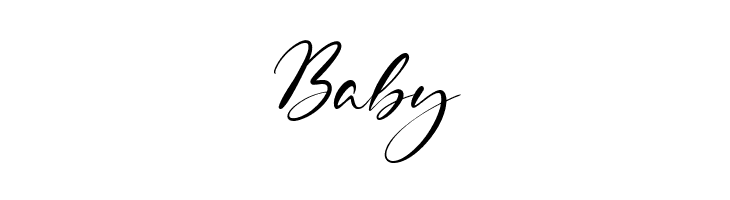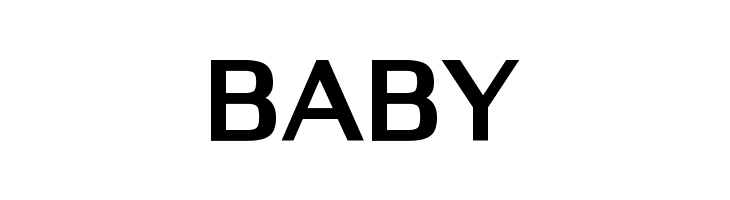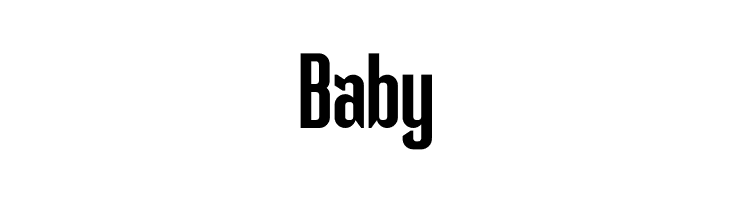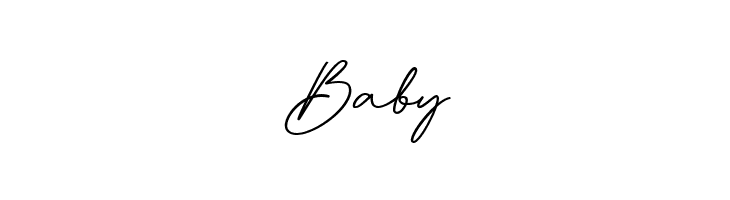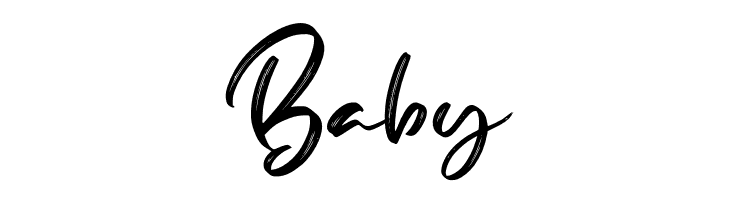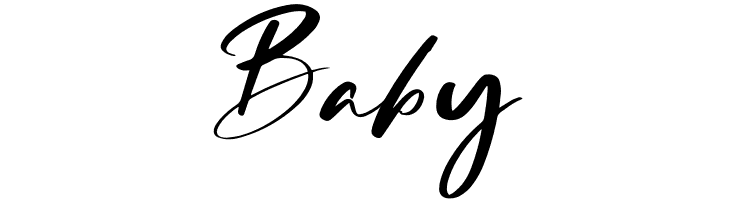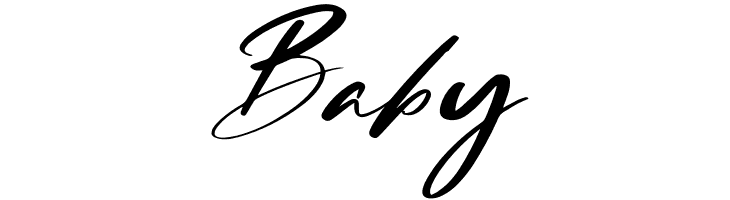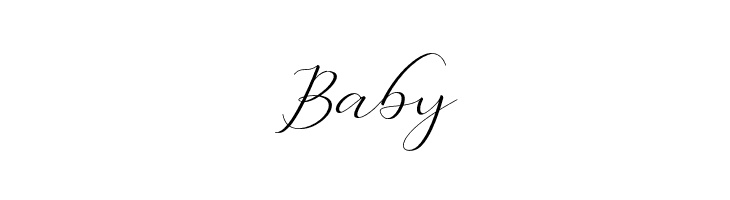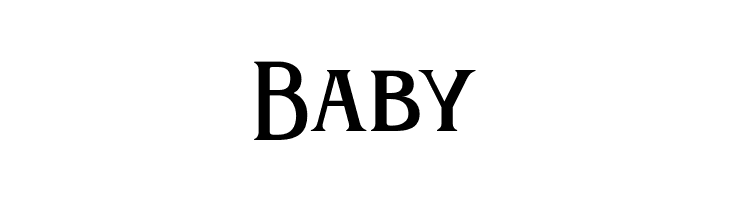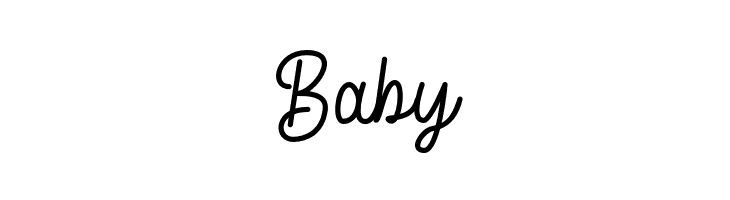
( Fonts by Suby Studio - Teguh Subiyantoro - Personal-use only. For commercial use please contact owner. ) An elegant script font with flowing, cursive strokes and sophisticated flourishes. Download 64 Downloads@WebFont
( Fonts by Letterena Studios - letterena.com - Personal-use only. For commercial use please contact owner. ) A dynamic, cursive script font with medium contrast and artistic flair. Download 35 Downloads@WebFont
( Fonts by Letterena Studios - letterena.com - Personal-use only. For commercial use please contact owner. ) A dynamic, flowing script font with elegant, cursive letterforms and a distinct slant. Download 31 Downloads@WebFont
( Fonts by Masanis Studio - Naufal Anis - Personal-use only. For commercial use please contact owner. ) An elegant script font with flowing, cursive letters and ornate flourishes. Download 21 Downloads@WebFont
( Fonts by Masanis Studio - Naufal Anis - Personal-use only. For commercial use please contact owner. ) An elegant script font with flowing, calligraphic lines and ornate details. Download 41 Downloads@WebFont
( Fonts by ToniStudio - Fatoni Nurman - Personal-use only. For commercial use please contact owner. ) A classic, elegant script font with flowing cursive letters. Download 37 Downloads@WebFont
( Fonts by Din Studio - Donis Miftahudin - Personal-use only. For commercial use please contact owner. ) A bold, cursive handwritten font with elegant, flowing strokes. Download 63 Downloads@WebFont
( Fonts by Almarkhatype - Abdul Malik Wisnu - Personal-use only. For commercial use please contact owner. ) A bold, modern font with tall, condensed uppercase letters and rounded lowercase characters. Download 53 Downloads@WebFont
( Fonts by Almarkhatype - Abdul Malik Wisnu - Personal-use only. For commercial use please contact owner. ) A bold, condensed font with a modern and impactful style. Download 58 Downloads@WebFont
( Fonts by Balev - Balevgraph Studio - Personal-use only. For commercial use please contact owner. ) A sophisticated script font with fluid, cursive strokes and elegant curves. Download 30 Downloads@WebFont
( Fonts by wep - Wahyu Eka Prasetya - Personal-use only. For commercial use please contact owner. ) A bold, distressed font with a rugged, textured appearance. Download 123 Downloads@WebFont
( Fonts by Atha Ruah - Personal-use only. For commercial use please contact owner. ) A modern, elegant font with clean lines and a sophisticated appearance. Download 1535 Downloads@WebFont
( Fonts by Atha Ruah - Personal-use only. For commercial use please contact owner. ) A delicate and elegant script font with flowing, connected characters. Download 42 Downloads@WebFont
( Fonts by Balpirick - Personal-use only. For commercial use please contact owner. ) A sophisticated and elegant script font with flowing cursive strokes. Download 25 Downloads@WebFont
( Fonts by Perspectype Studio - Personal-use only. For commercial use please contact owner. ) A dynamic, cursive script font with fluid, connected letters and varying stroke thickness. Download 23 Downloads@WebFont
( Fonts by Perspectype Studio - Personal-use only. For commercial use please contact owner. ) A dynamic, cursive script font with a fluid and elegant style. Download 19 Downloads@WebFont
( Fonts by Perspectype Studio - Personal-use only. For commercial use please contact owner. ) A fluid and elegant script font with a sophisticated, handwritten style. Download 31 Downloads@WebFont
( Fonts by Perspectype Studio - Personal-use only. For commercial use please contact owner. ) A fluid and elegant cursive font with interconnected strokes, mimicking natural handwriting. Download 55 Downloads@WebFont
( Fonts by dancubs - Demsey Satya Nagara - Personal-use only. For commercial use please contact owner. ) A bold, expressive handwritten font with a brush-like texture. Download 27 Downloads@WebFont
( Fonts by Perspectype Studio - Personal-use only. For commercial use please contact owner. ) An elegant and sophisticated cursive script font with flowing, ornate characters. Download 26 Downloads@WebFont
( Fonts by Perspectype Studio - Personal-use only. For commercial use please contact owner. ) A sophisticated script font with elegant, flowing italic characters and high contrast strokes. Download 32 Downloads@WebFont
( Fonts by Almarkhatype - Abdul Malik Wisnu - Personal-use only. For commercial use please contact owner. ) A bold, modern font with thick strokes and a strong presence. Download 218 Downloads@WebFont
( Fonts by Almarkhatype - Abdul Malik Wisnu - Personal-use only. For commercial use please contact owner. ) A bold, playful font with a modern and approachable style. Download 27 Downloads@WebFont
( Fonts by Almarkhatype - Abdul Malik Wisnu - Personal-use only. For commercial use please contact owner. ) A bold, modern sans-serif font with clean lines and strong readability. Download 104 Downloads@WebFont
( Fonts by Almarkhatype - Abdul Malik Wisnu - Personal-use only. For commercial use please contact owner. ) A bold, modern sans-serif font with clean lines and a compact appearance. Download 31 Downloads@WebFont
( Fonts by Maulana Creative - Gilang Maulana - Personal-use only. For commercial use please contact owner. ) A bold, expressive handwritten font with dynamic cursive letterforms. Download 45 Downloads@WebFont
( Fonts by Sentinel Type - James Arboghast ) A bold slab serif font with a vintage Western style. Download 909 Downloads@WebFont
( Fonts by Sentinel Type - James Arboghast ) A bold, decorative slab serif font with strong, impactful characters. Download 498 Downloads@WebFont
( Fonts by Sentinel Type - James Arboghast ) A bold slab serif font with a vintage yet modern appeal. Download 482 Downloads@WebFont
( Fonts by Muhammad Romzul Khoir - Personal-use only. For commercial use please contact owner. ) A classic serif font with elegant, sharp serifs and a sophisticated appearance. Download 116 Downloads@WebFont
( Fonts by Vunira Design - Personal-use only. For commercial use please contact owner. ) A decorative script font with elegant, flowing characters and intricate details. Download 25 Downloads@WebFont
( Fonts by Vunira Design - Personal-use only. For commercial use please contact owner. ) An elegant and flowing script font with intricate loops and flourishes. Download 24 Downloads@WebFont
( Fonts by adi widyantoro - Personal-use only. For commercial use please contact owner. ) An elegant, cursive script font with flowing, interconnected strokes. Download 80 Downloads@WebFont
( Fonts by Greg Medina - www.dcoxy.com - Personal-use only. For commercial use please contact owner. ) An elegant script font with intricate swirls and high contrast, perfect for decorative purposes. Download 63 Downloads@WebFont
( Fonts by Nur Solikh - Personal-use only. For commercial use please contact owner. ) A playful and elegant script font with flowing, cursive strokes. Download 35 Downloads@WebFont